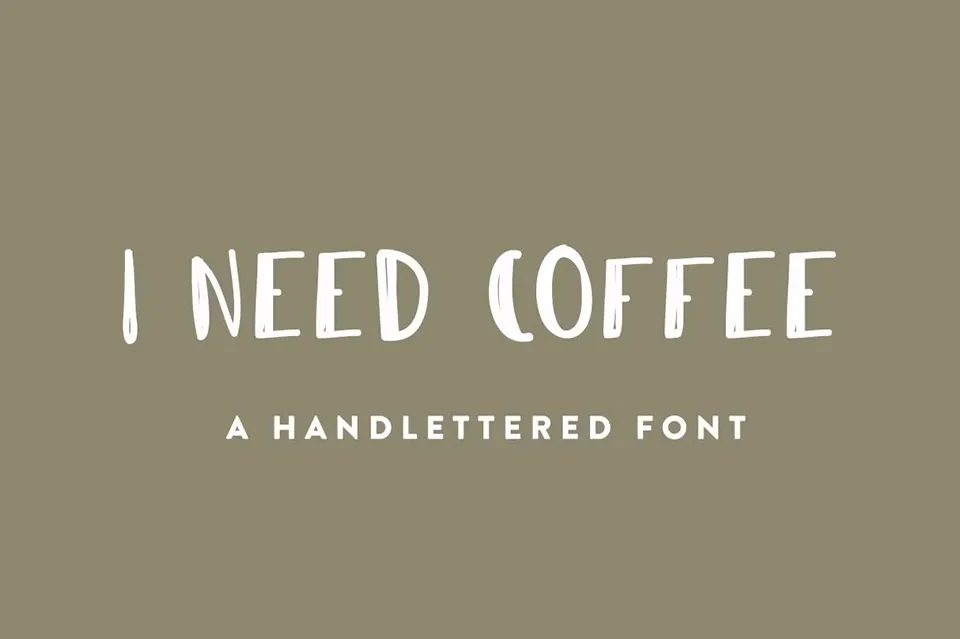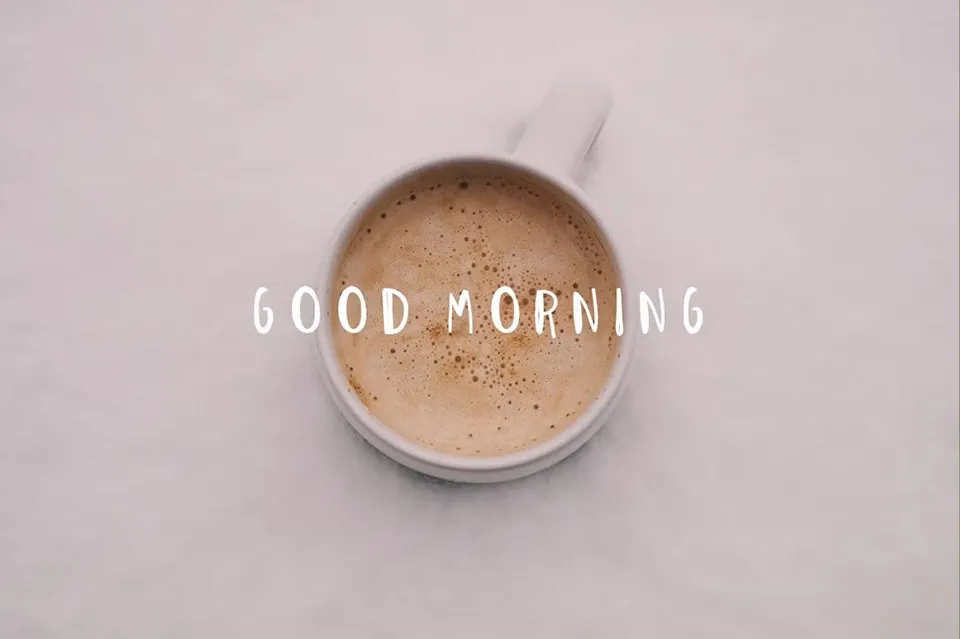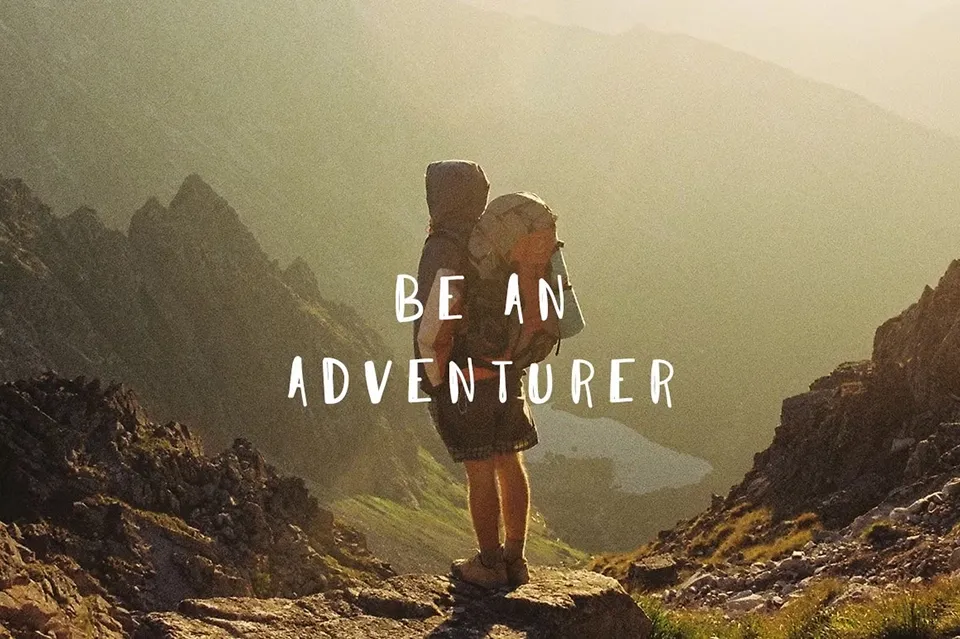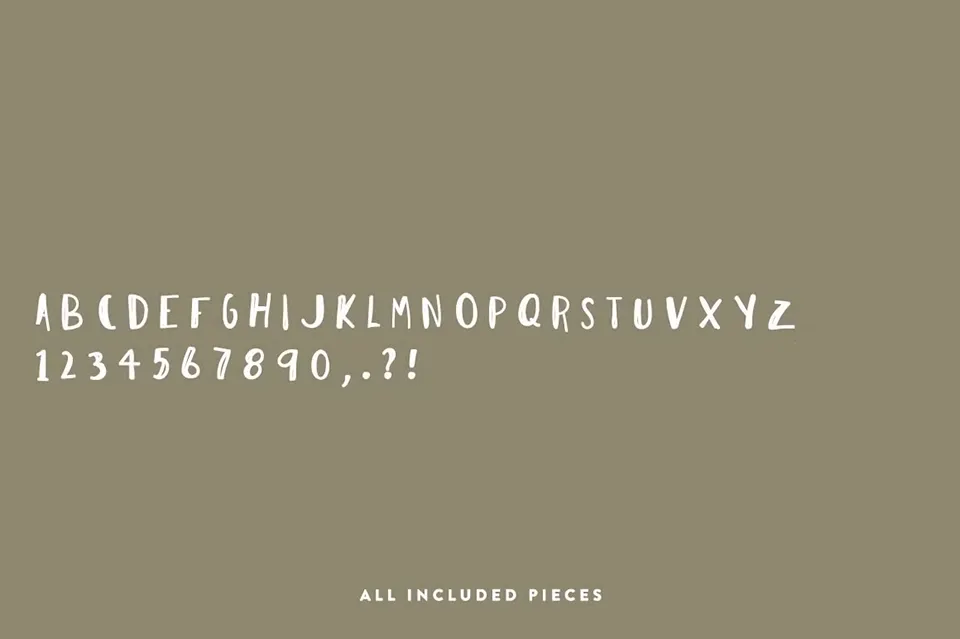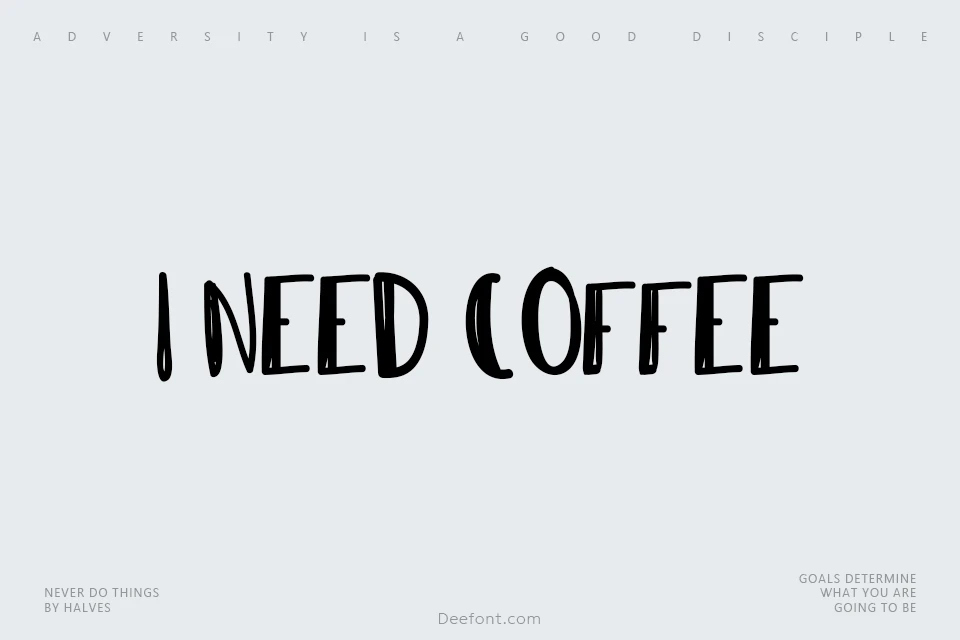
I Need Coffee Font
I Need Coffee Font is a charming and hand-lettered typeface designed to bring a casual and playful touch to your creative projects. With its imperfect strokes and organic feel, this font exudes warmth and personality, making it perfect for branding, packaging, social media content, and DIY-inspired designs. Its bold yet approachable style ensures readability while adding a unique character to your text. Whether you’re crafting cheerful headlines or creating cozy visuals, I Need Coffee Font captures the essence of handmade artistry. Ideal for projects that seek authenticity and creativity, this typeface is sure to make your designs stand out.